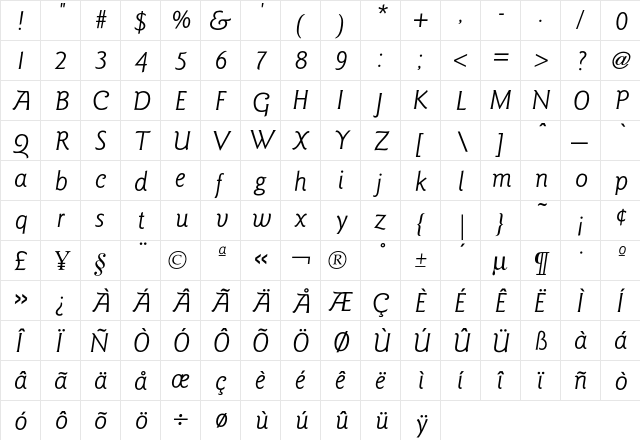
Goudy SansBookItalic
Design Context for Goudy Typeface
Goudy takes a measured approach to typography — its balanced proportions and neutral character make it a reliable workhorse for both digital and print work. The dynamic lean of this cut emphasises speed and emphasis in any layout.
Pro Tip: Use Goudy for emphasis, pull quotes, and subheadings where its slanted energy can add rhythm to the layout.